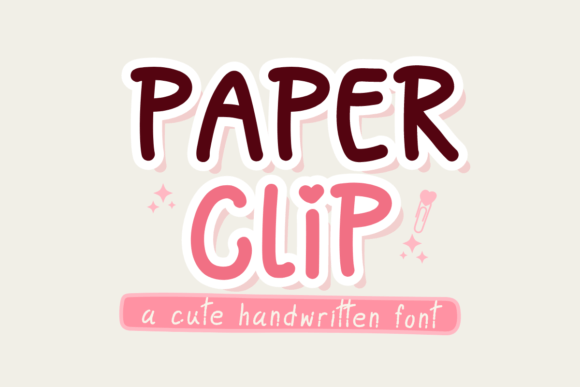
In the realm of digital expression, let your words dance with grace and charm, entwined with the elegance of Paper Clip Font, a captivating script font family that transforms your digital creations into works of art.
Paper Clip Font is the epitome of handwritten beauty, meticulously crafted by the talented Khim08Studio. Its essence lies in its simplicity and charm, a delicate balance that captivates the hearts of those who seek a touch of elegance in their design endeavors.
With Paper Clip Font, you can breathe life into your essays, allowing your words to flow with a grace that commands attention. Its carefully designed curves mimic the gentle strokes of a pen, evoking a sense of authenticity and heartfelt connection with your readers.
But Paper Clip Font's versatility extends far beyond the written word. Unleash your creativity and explore its boundless potential in a myriad of applications, from charming crafts for children to heartfelt greeting cards. Let your imagination soar as you transform ordinary text into the centerpiece of your designs, captivating the eyes of all who behold them.
Embrace the charm of Paper Clip Font and embark on a journey of inspiration and self-expression. Let your words dance with joy, your designs flourish with elegance, and your creativity bloom like a thousand flowers in spring. Experience the magic of Paper Clip Font today!